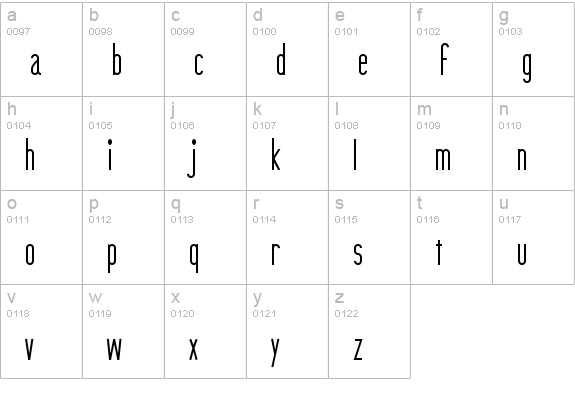
PeterPierreCondensed Font Details
PeterPierreCondensed is a sleek and stylish font that exudes elegance and sophistication. Its condensed letterforms are perfect for adding a touch of refinement to any project. The clean lines and subtle curves of this typeface make it versatile and easy to read, making it an ideal choice for both print and digital designs. This font offers a unique blend of classic and modern elements, making it suitable for a wide range of applications. Whether you're designing a logo, creating a brand identity, or crafting a stylish headline, PeterPierreCondensed will add a touch of class to your work. What sets PeterPierreCondensed apart is that it is not only visually stunning but also completely free. That's right, this incredible font is freely available to download at FontsMarket.com. You no longer have to compromise on quality or budget constraints when you can have this exceptional font at your fingertips without spending a dime. So go ahead and elevate your designs with PeterPierreCondensed. Its timeless appeal and effortless elegance will make your projects stand out from the crowd. Download it for free at FontsMarket.com and unleash your creativity today.